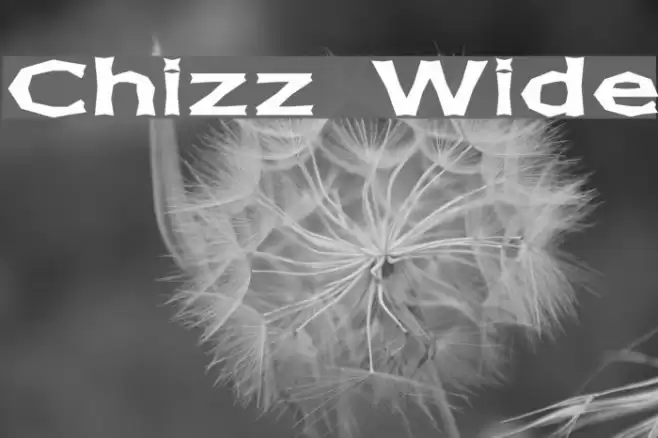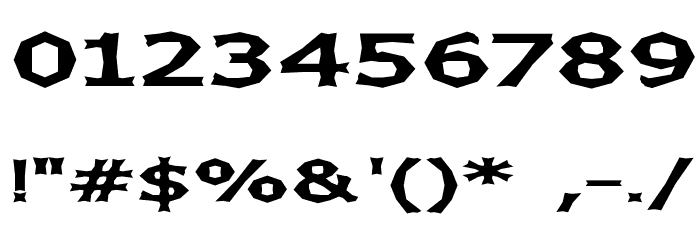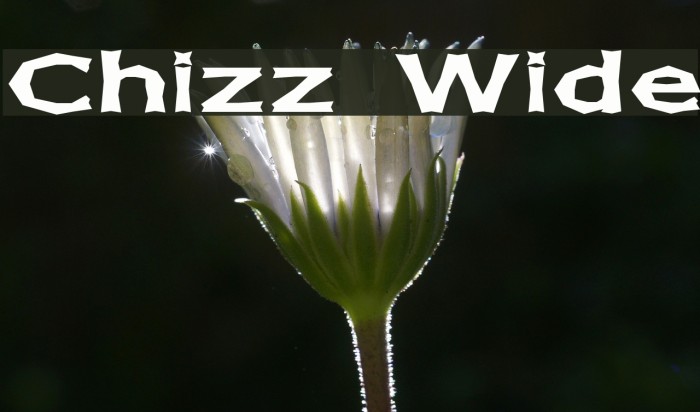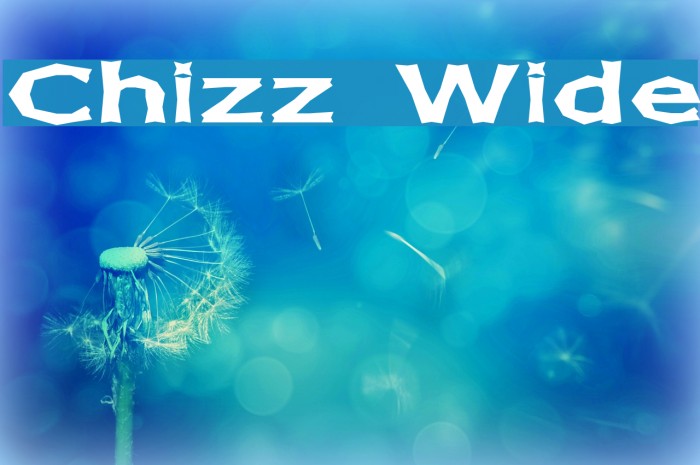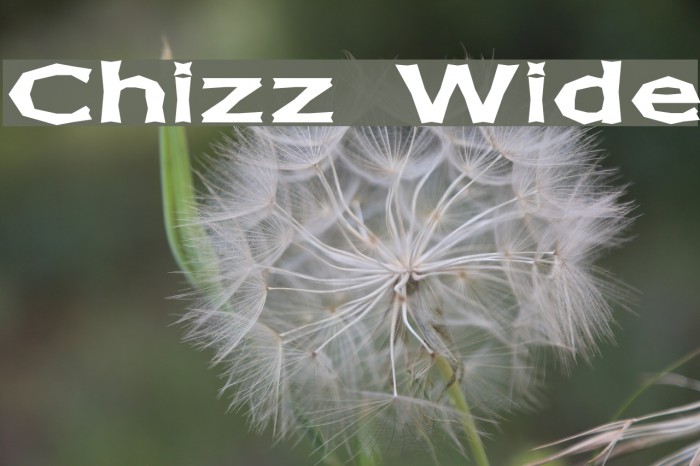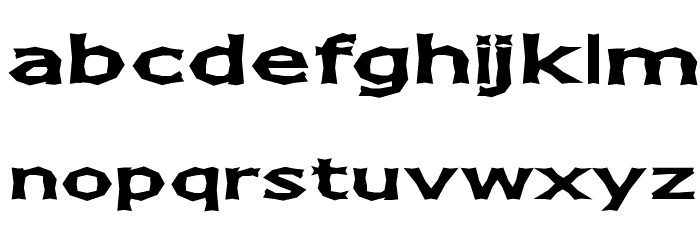
Chizz Wide Font
Chizz Wide Description
This font features a bold and dynamic style with a distinctly chiseled appearance. The characters have a rugged, hand-carved look, giving them a unique and artistic flair. The uppercase and lowercase letters maintain a consistent design, with sharp angles and irregular edges that suggest a sense of movement and energy. The numbers and special characters follow the same aesthetic, ensuring a cohesive look across all text elements. This font's boldness and distinctive style make it stand out, ideal for projects that require a strong visual impact.
A bold, chiseled font with a dynamic and artistic style from Comic fonts.
- Proposed Projects: Ideal for posters, logos, branding, and any design needing a strong, artistic touch.